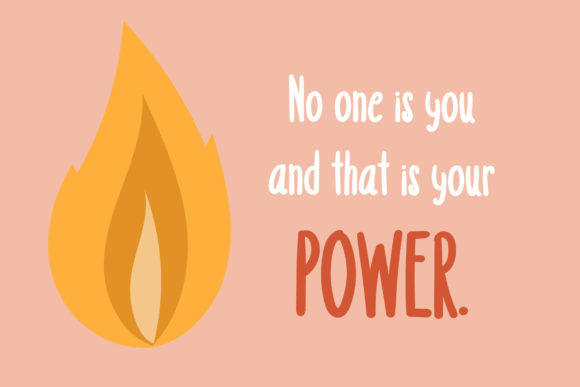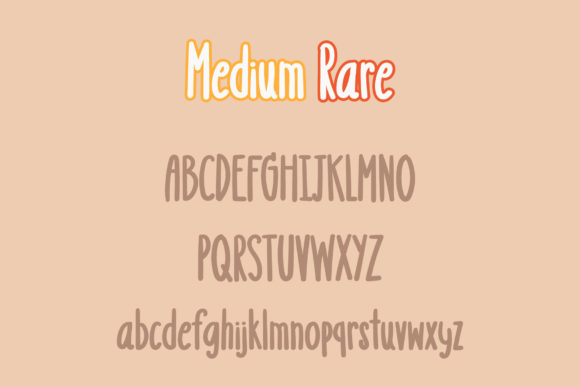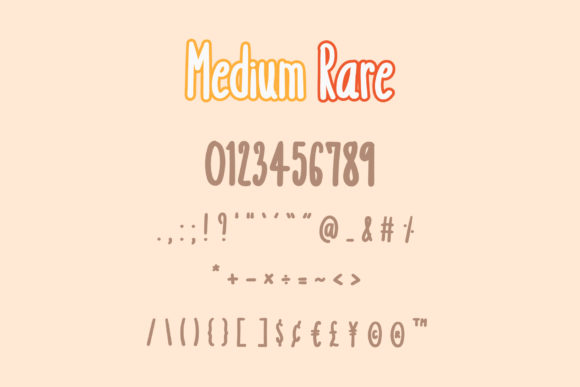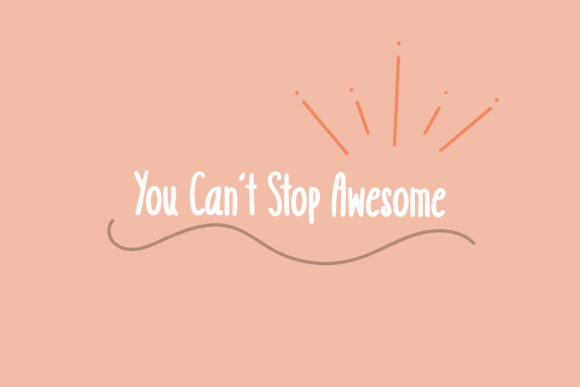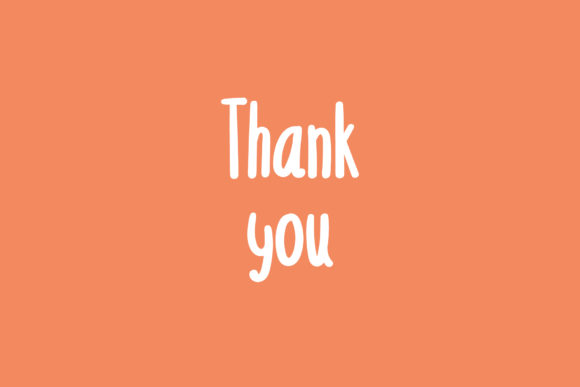
Medium Rare Font
About Medium Rare Font
Medium Rare embodies fun, quirkiness and authenticity. This enchanting handwritten font will turn any creative idea into a true standout!